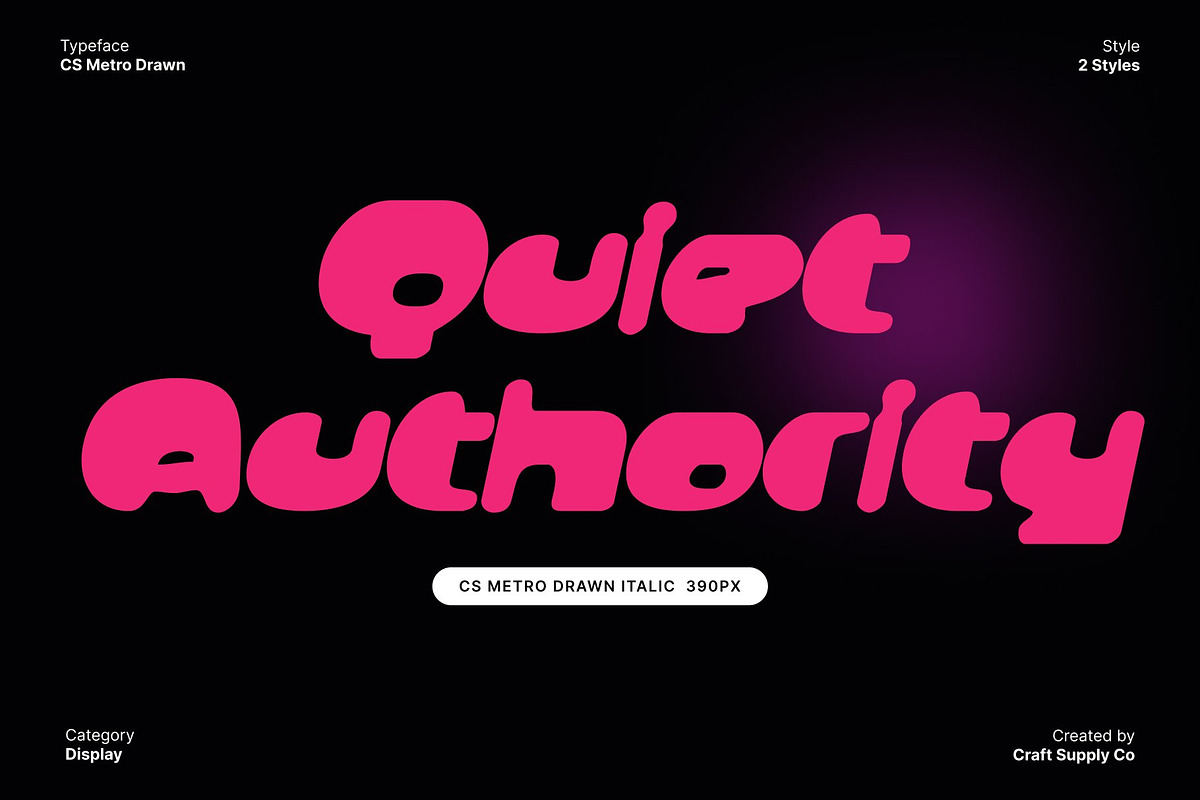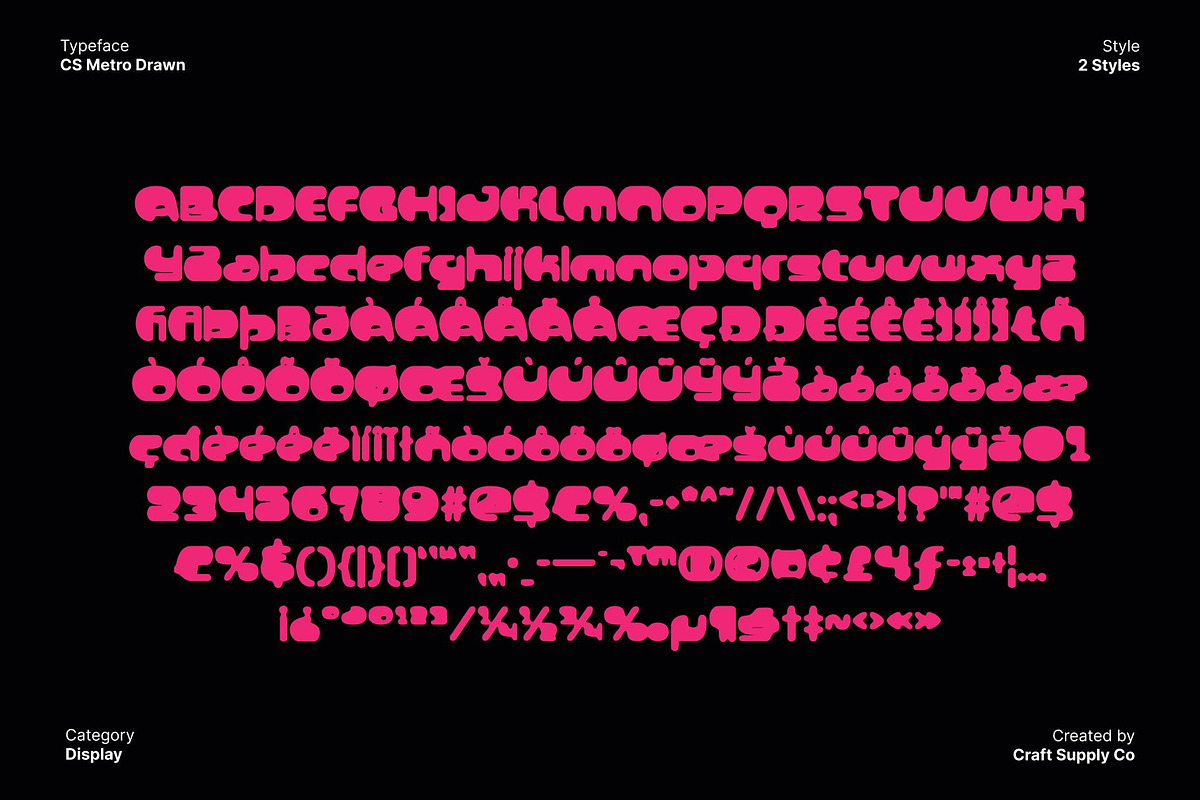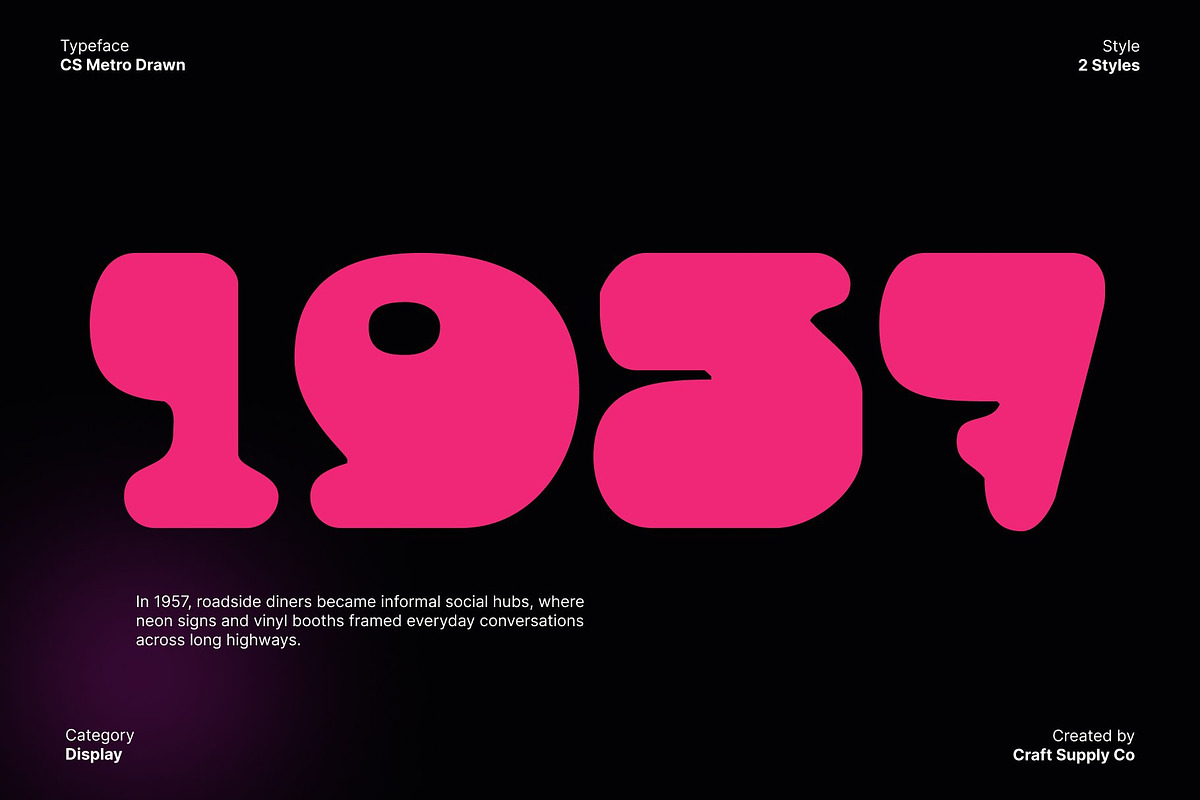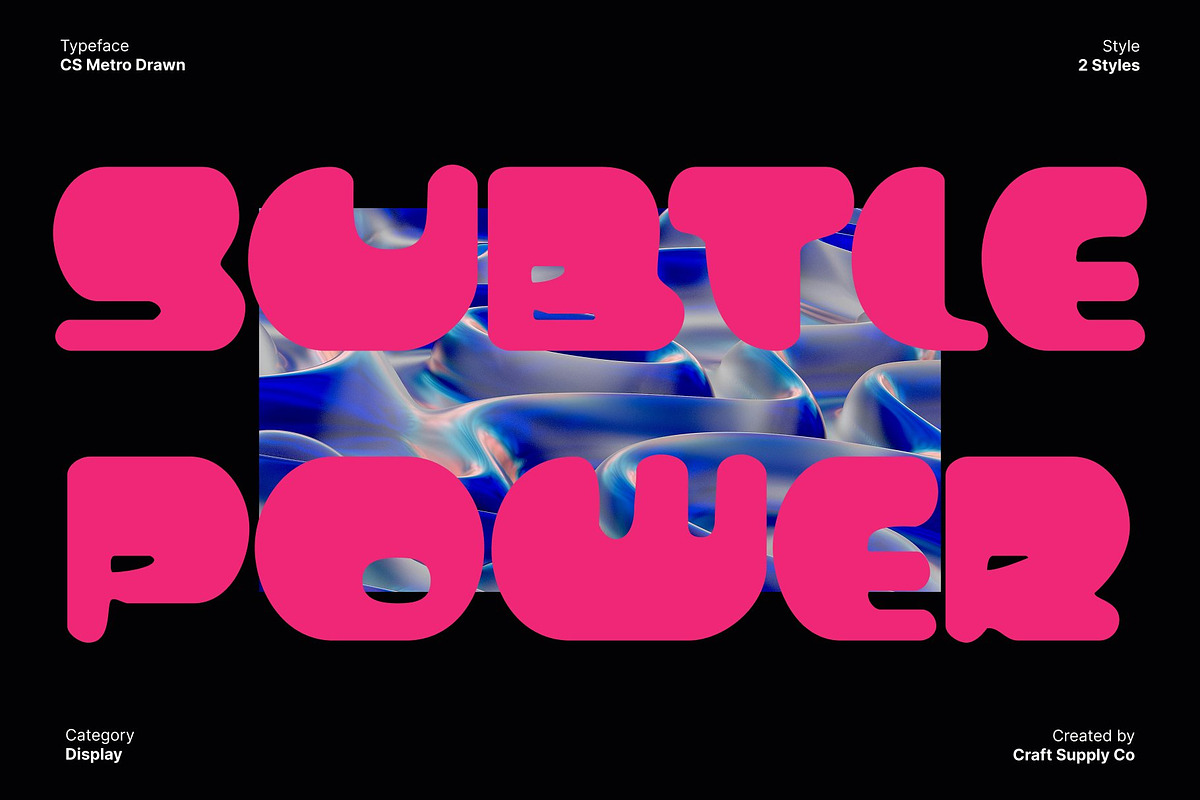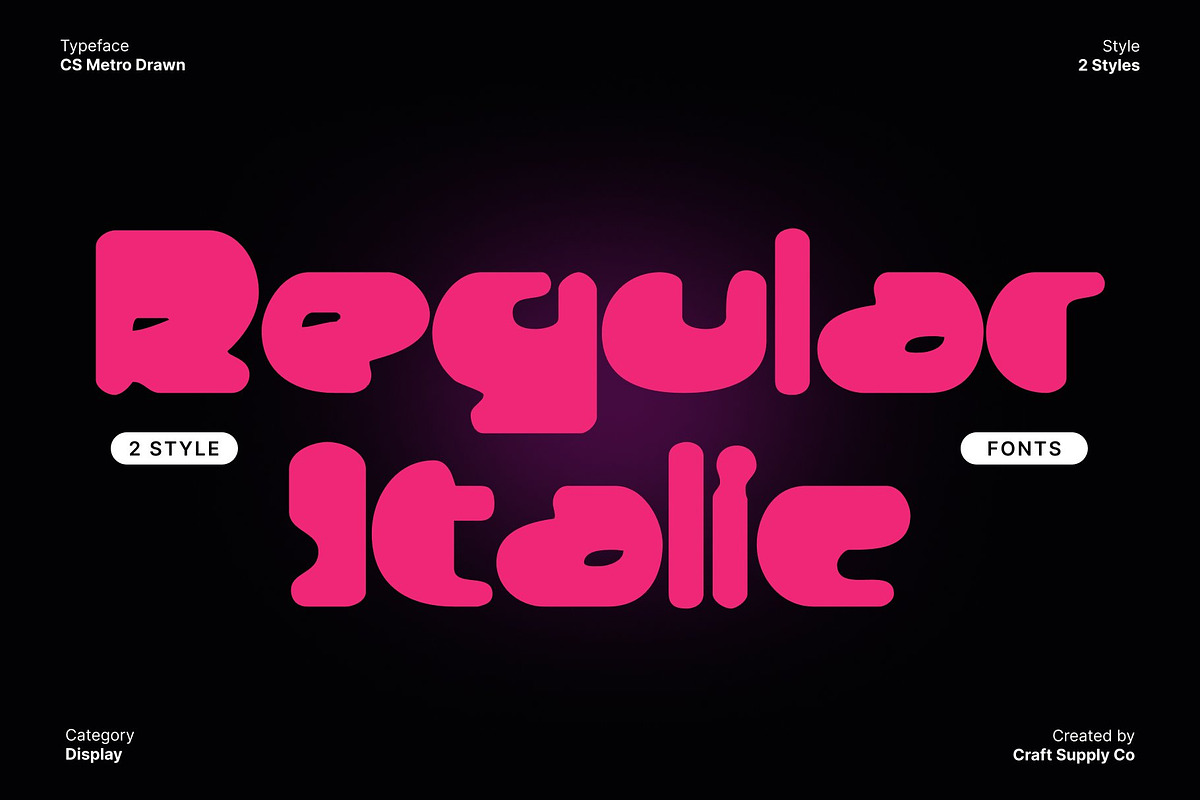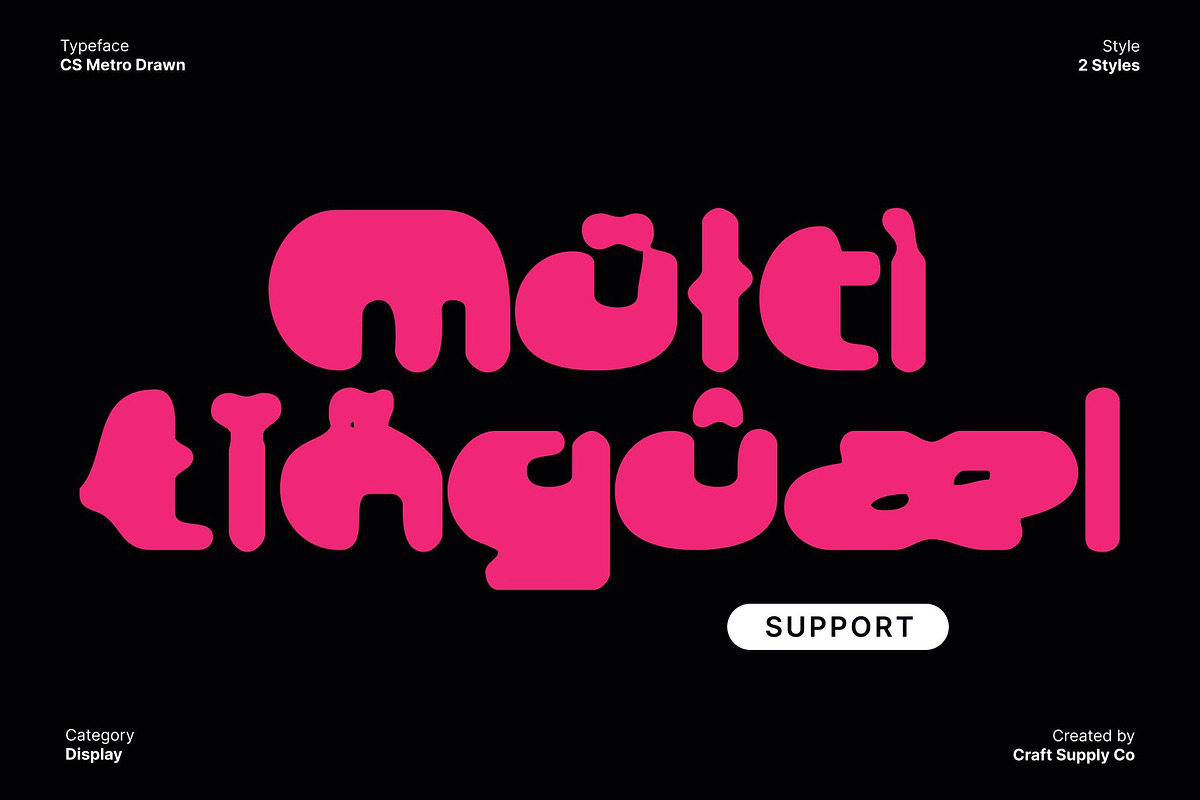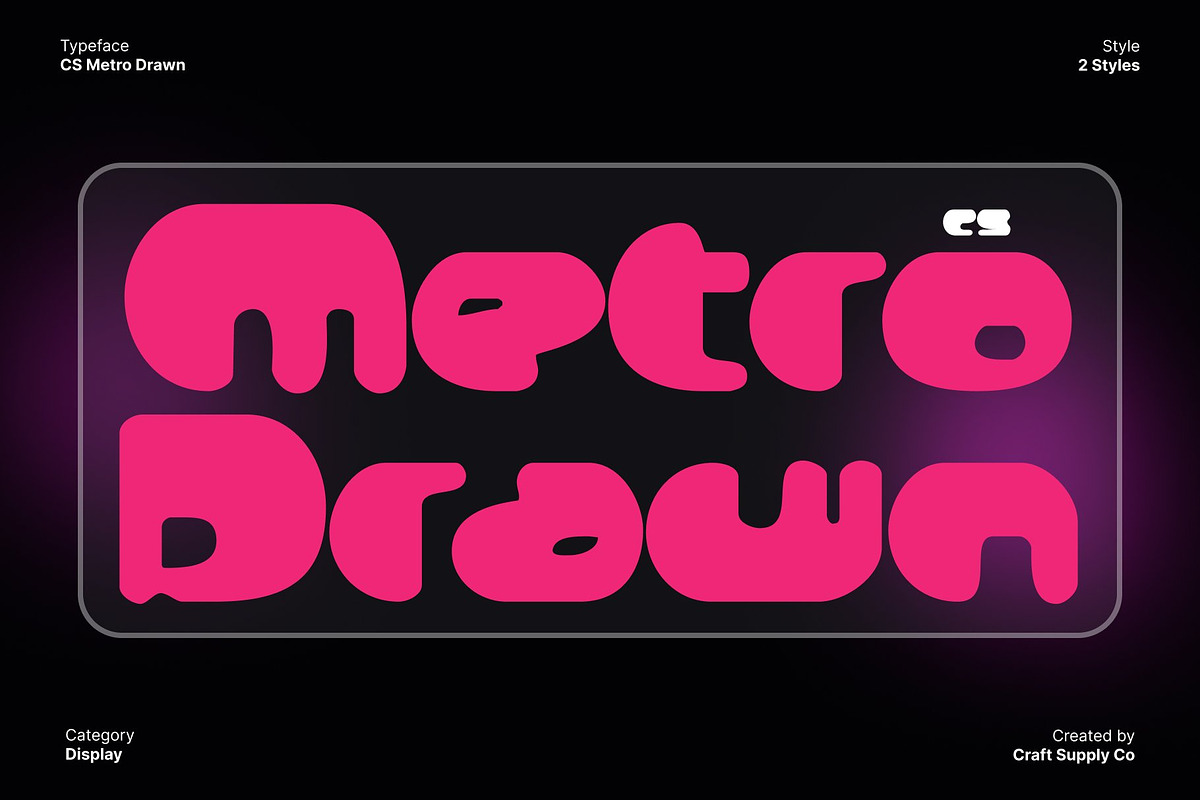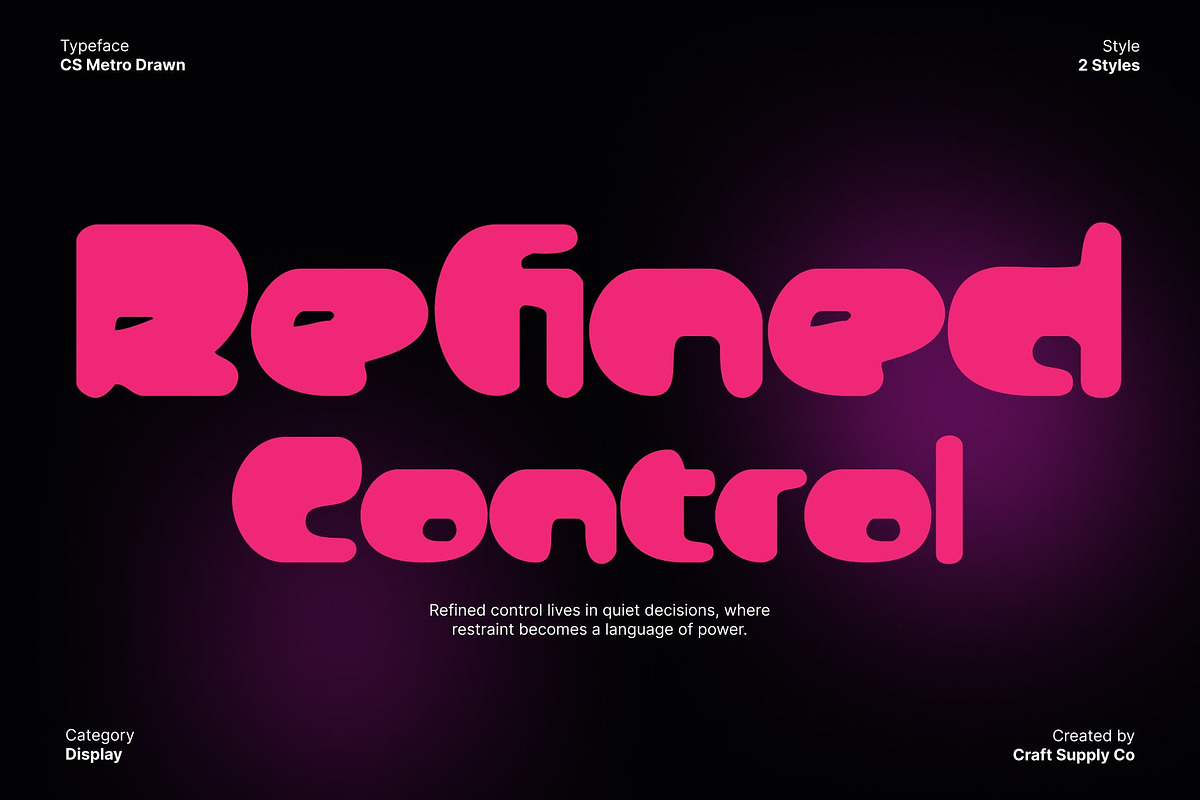
CS Metro Drawn
CS Metro Drawn – Y2K Display Font with Pop-Futuristic Energy
Y2K Bubble Display Font with Drawn Texture This is a bold Y2K-inspired display font that captures pop-futuristic vibes through playful bubble shapes and expressive hand-drawn details. Built on chunky, rounded letterforms, this typeface radiates joy, optimism, and digital nostalgia. The drawn texture adds an organic, handmade feel that enhances its personality, making the font feel lively, creative, and full of character.
Playful Geometry with Bold Personality The plump, rounded shapes of create an instantly eye-catching presence. Its bubbly construction feels friendly yet confident, delivering strong visual impact without losing charm. The exaggerated curves and bold weight give the font a loud, joyful rhythm that works perfectly for designs meant to stand out and spark excitement.
Retro-Futuristic Style Inspired by the Y2K Era This font channels the spirit of the early 2000s, blending pop culture energy with futuristic imagination. Influenced by Y2K visuals, digital experimentation, and playful tech aesthetics, the font feels nostalgic yet forward-looking. The softened edges and funky proportions echo a time of creative freedom and optimistic futurism, making it ideal for nostalgia-driven concepts with a modern twist.
Perfect for Expressive and Creative Applications Designed for bold and expressive use, shines in posters, fashion branding, music visuals, editorial layouts, logos, and social media graphics. Its strong personality ensures instant attention, while the drawn texture adds warmth and uniqueness.
- CS Metro Drawn Regular
- CS Metro Drawn Italic